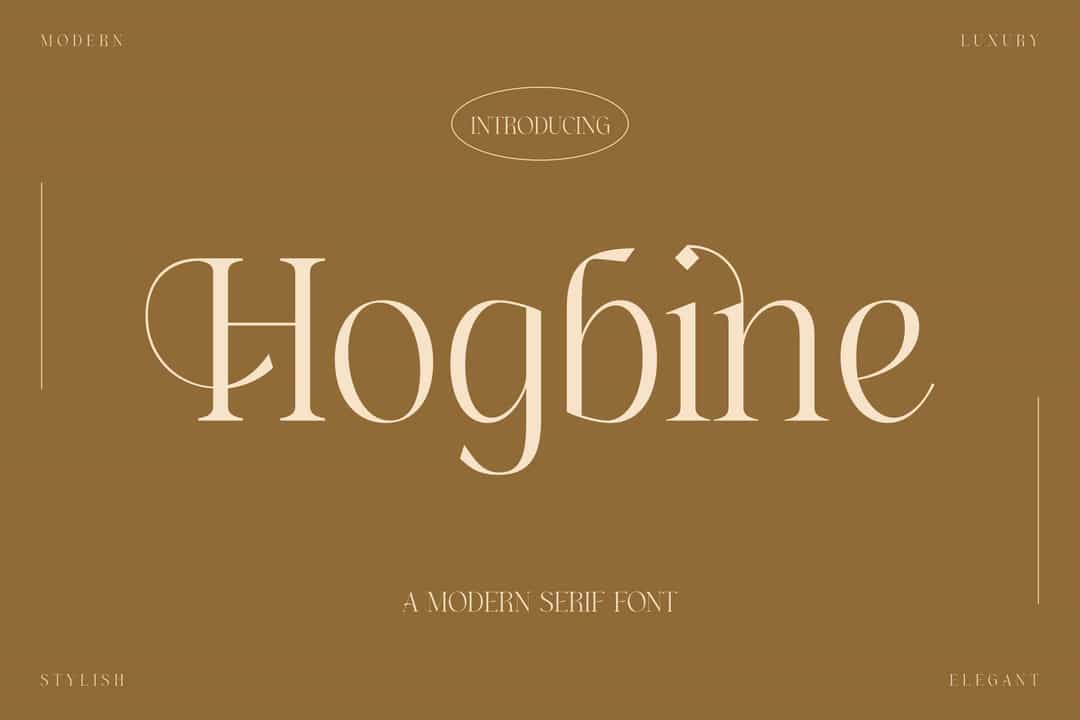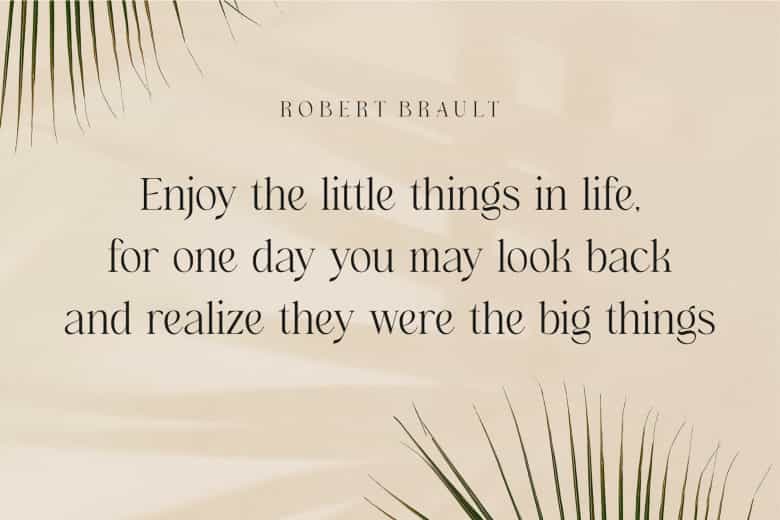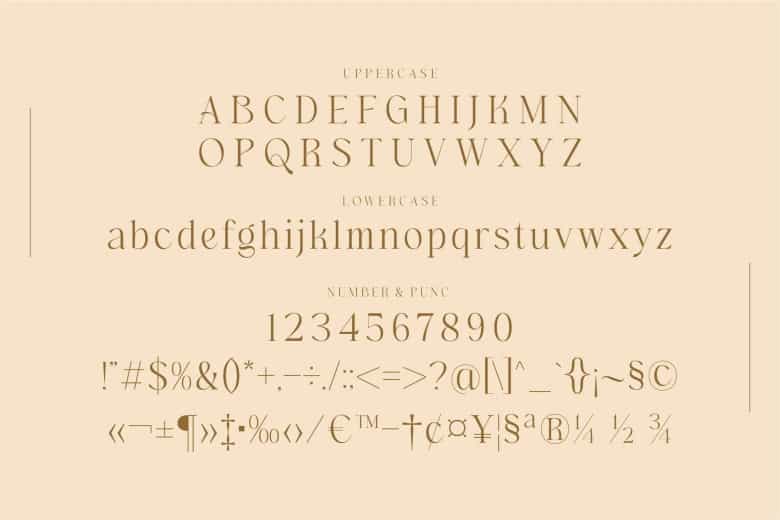
Hogbine can be described as an elegant yet contemporary serif typeface with distinct style and modern appearance. Perfect for creating luxurious logos, movie/book styles, title designs, fashion label clothing designs, magazines lettering or quotes among many other applications, Hogbine offers timeless beauty in every form imaginable.